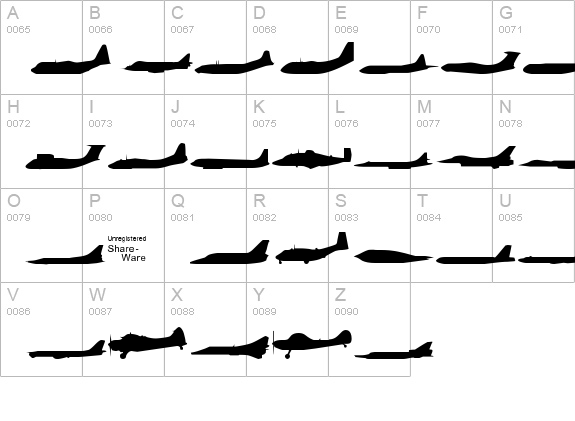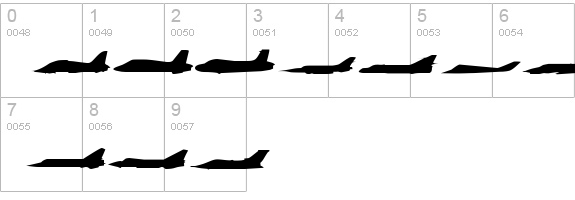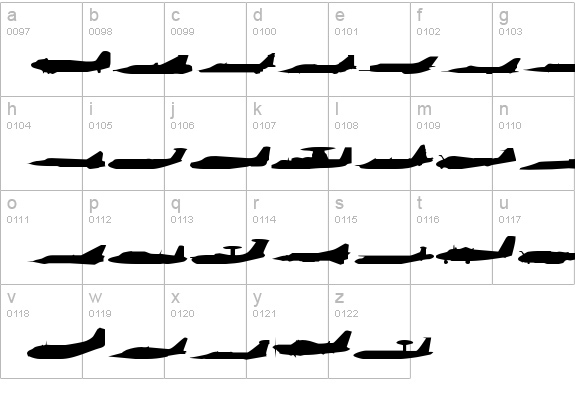
Planes-S-Modern Font Details
Planes-S-Modern font is a stunning display typeface that combines elegance with a contemporary edge. Its sleek and streamlined design exudes sophistication, making it the perfect choice for any modern project. With its clean lines and geometric shapes, this font captures attention and creates a sense of professionalism. But what sets Planes-S-Modern font apart is that it is not only visually appealing, but also freely available to download. Yes, you read that right! You can easily access and use this font without any cost. This makes it an ideal choice for designers, creatives, and anyone looking to add a touch of sophistication to their work, without breaking the bank. Whether you're working on a branding project, designing a website, or creating eye-catching advertisements, Planes-S-Modern font will elevate your design to new heights. Its versatility allows it to blend seamlessly into various contexts, while still maintaining its unique and captivating style. To get your hands on this exceptional font, simply head over to FontsMarket.com, where you can download it for free. FontsMarket.com is a trusted source for high-quality fonts, offering a vast collection of typefaces to suit every design need. With just a few clicks, you'll have access to Planes-S-Modern font and be able to unleash your creativity without any limitations. Don't miss out on the opportunity to enhance your designs with the elegance and modernity of Planes-S-Modern font. Download it for free at FontsMarket.com and experience the power of this versatile typeface for yourself.